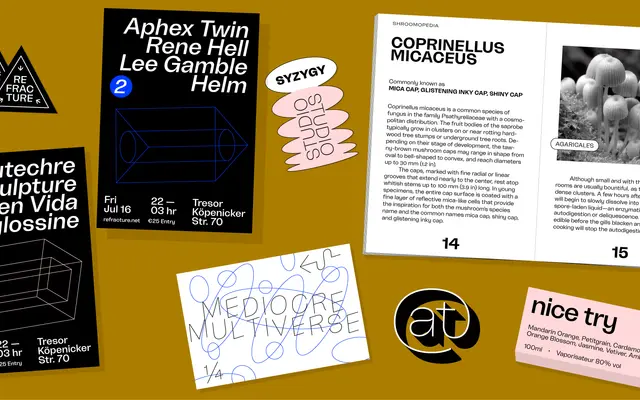
Freizeit
A bold grotesque from Polytype whose name derives from the German compound word for leisure, combining 'Frei' and 'Zeit'.
Freizeit is a display grotesque from Polytype, taking its name from the German word for leisure. The specimen page highlights OpenType features and presents the typeface at a large 140-point size, suggesting a primary purpose in headline and display settings. Information about the full weight range and italic availability is limited from the page content available.
The name and specimen styling suggest a German-influenced grotesque; the page references OpenType features and a bold weight typical of display grotesque families.